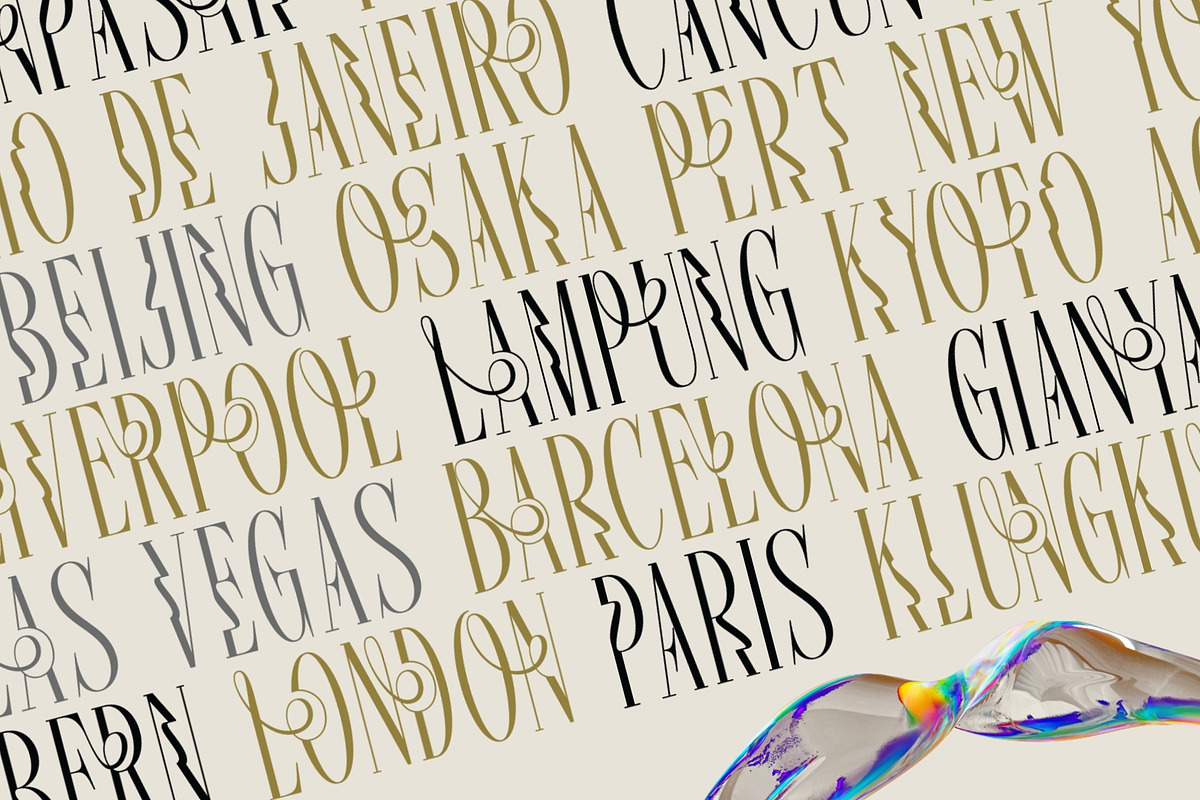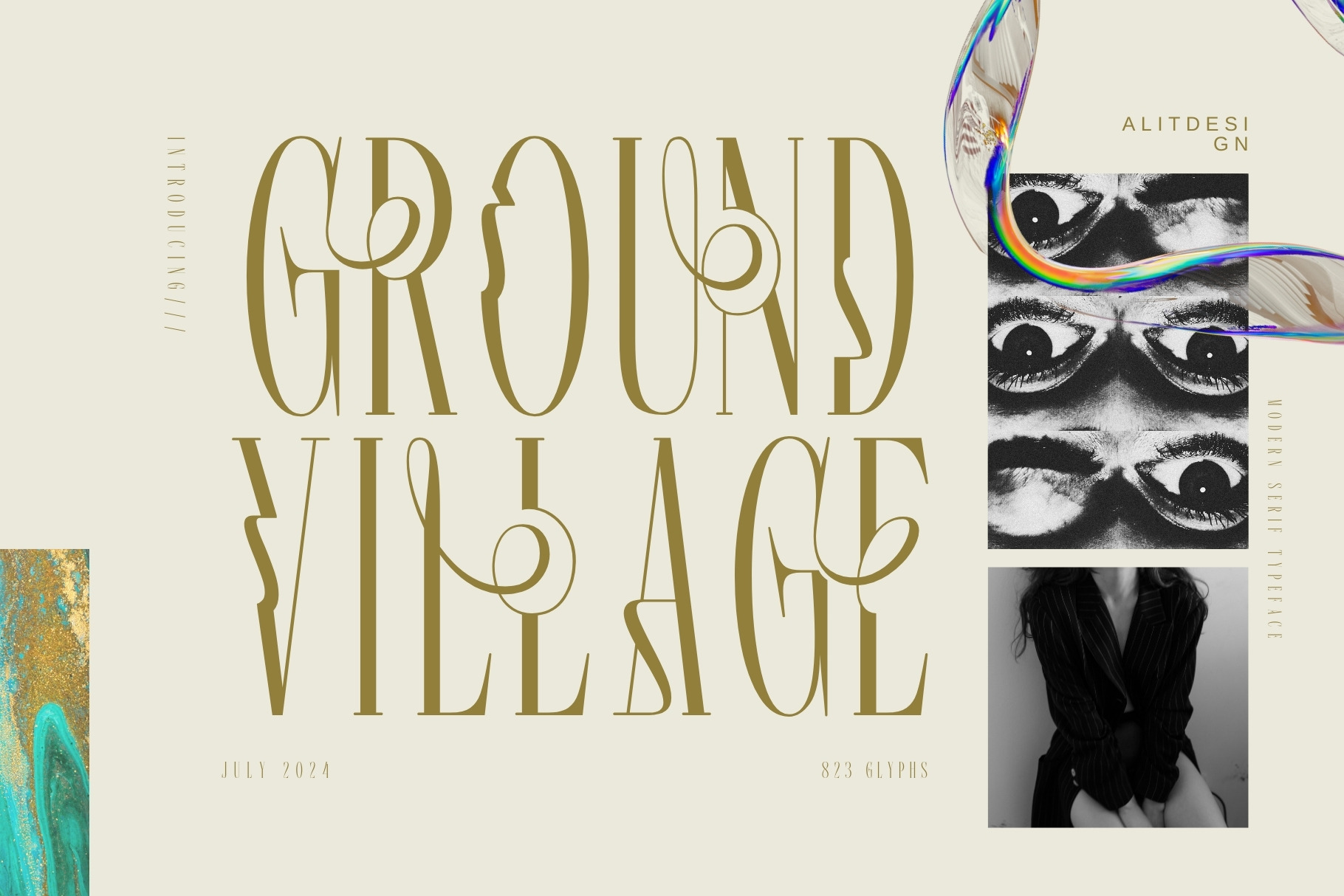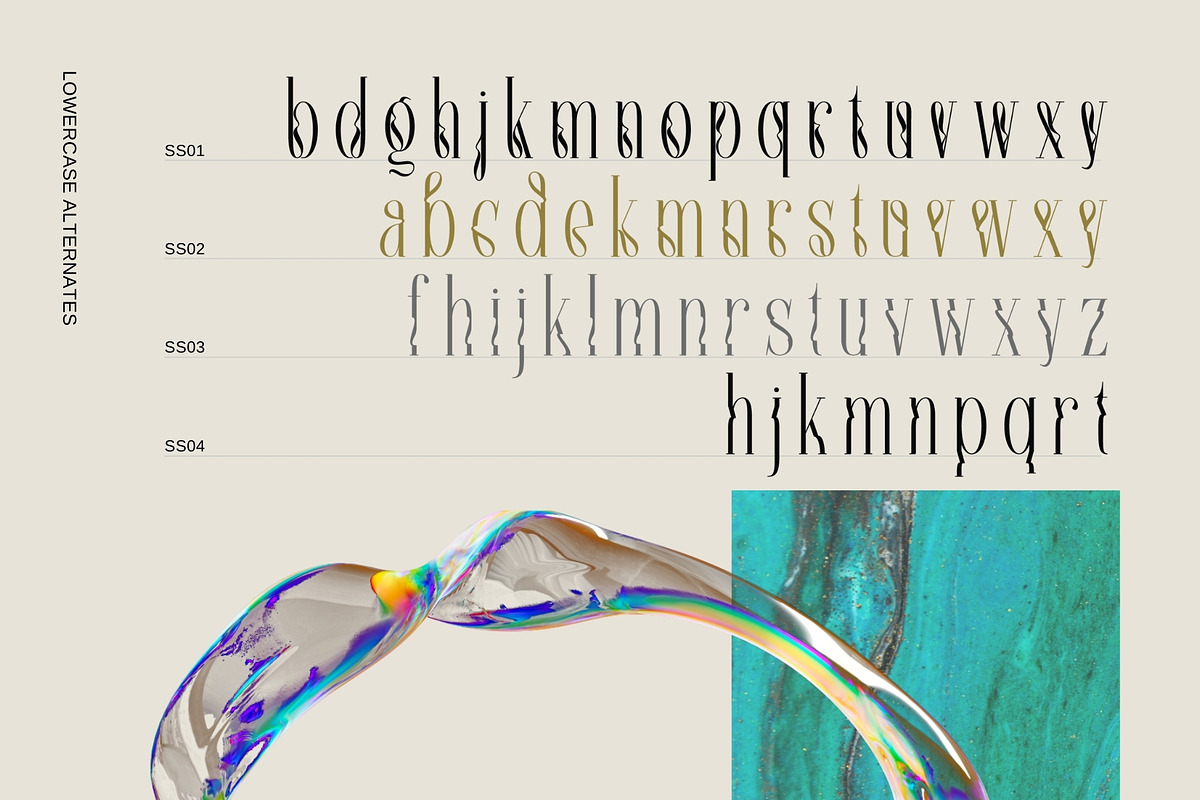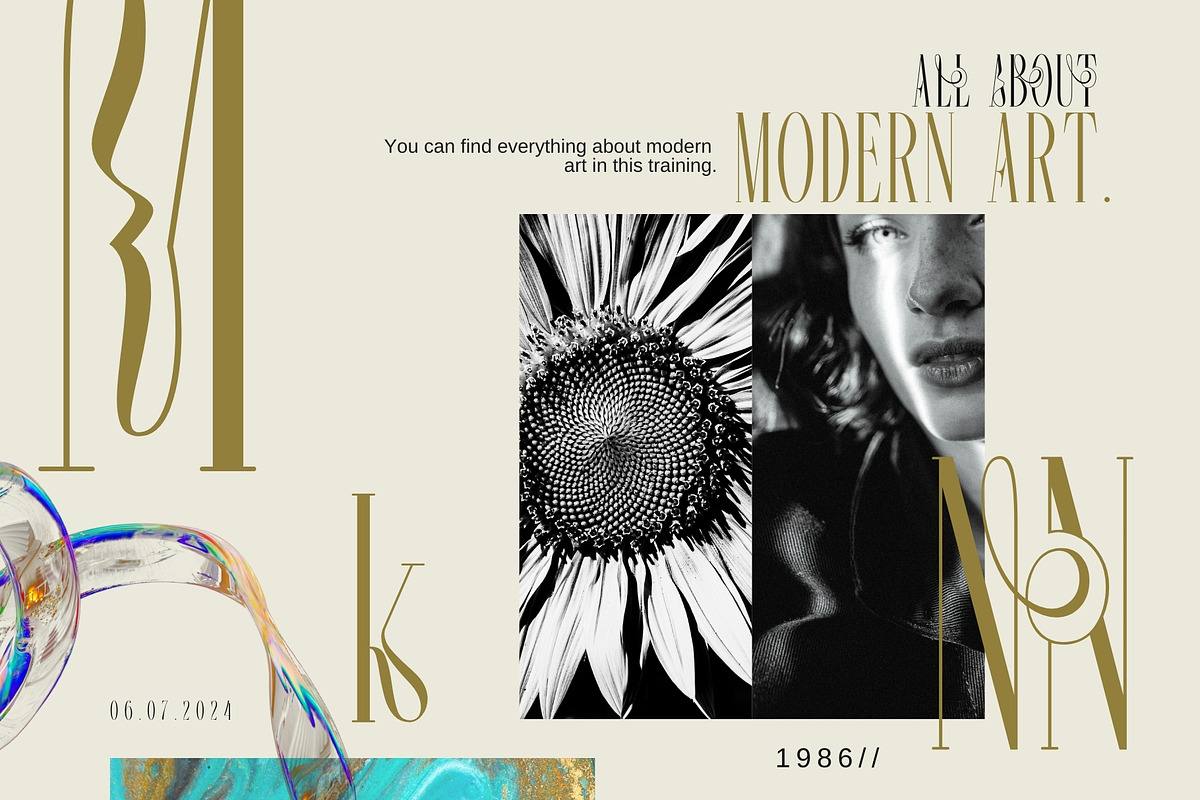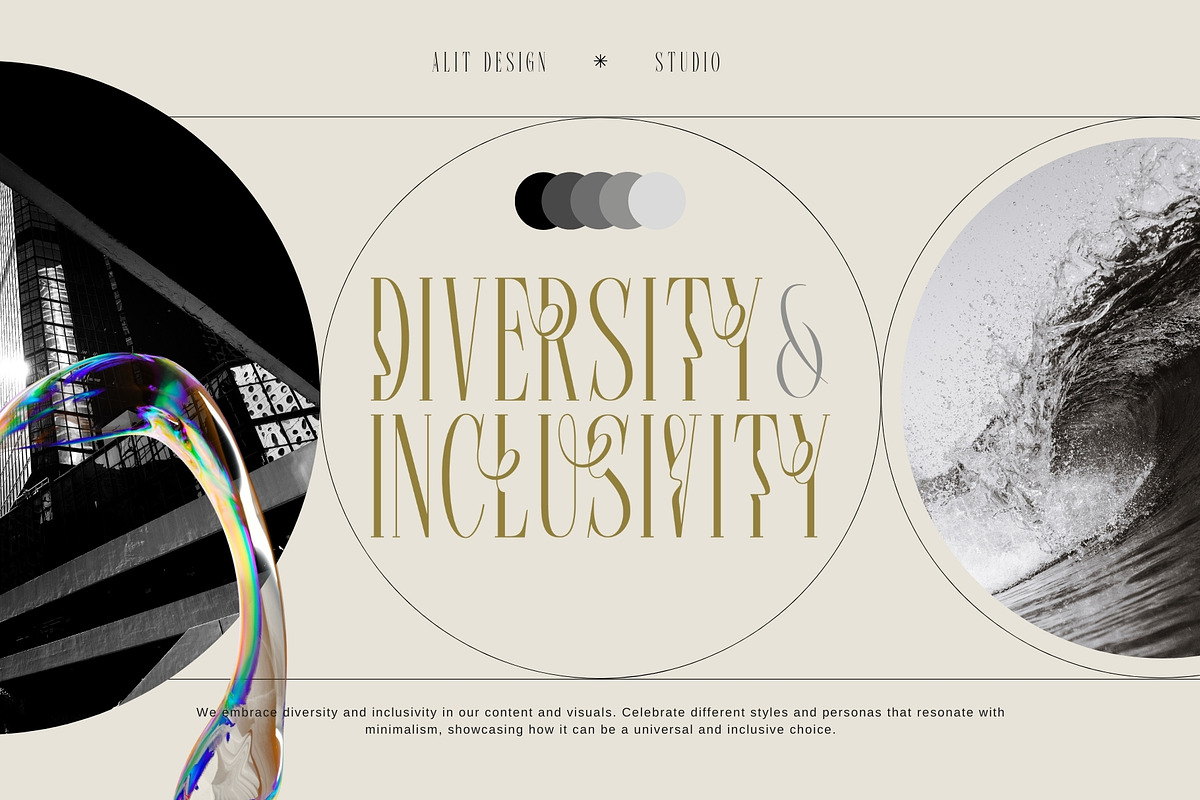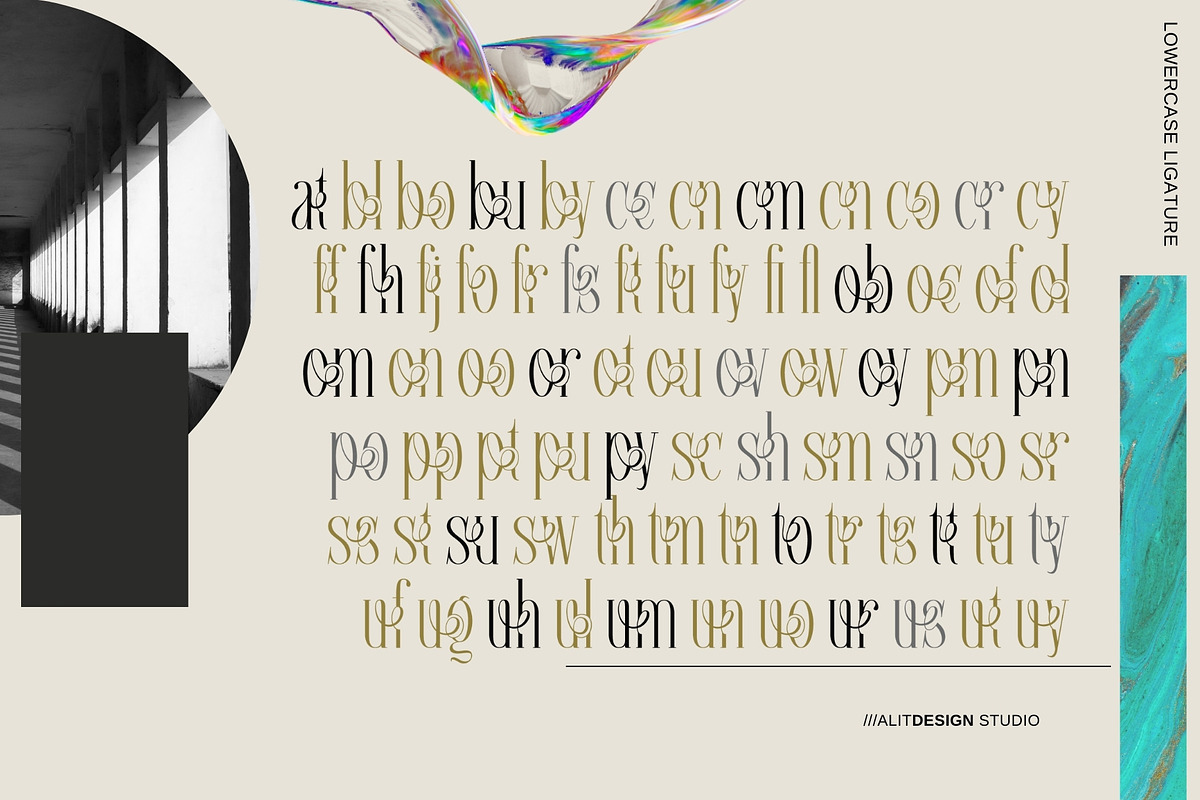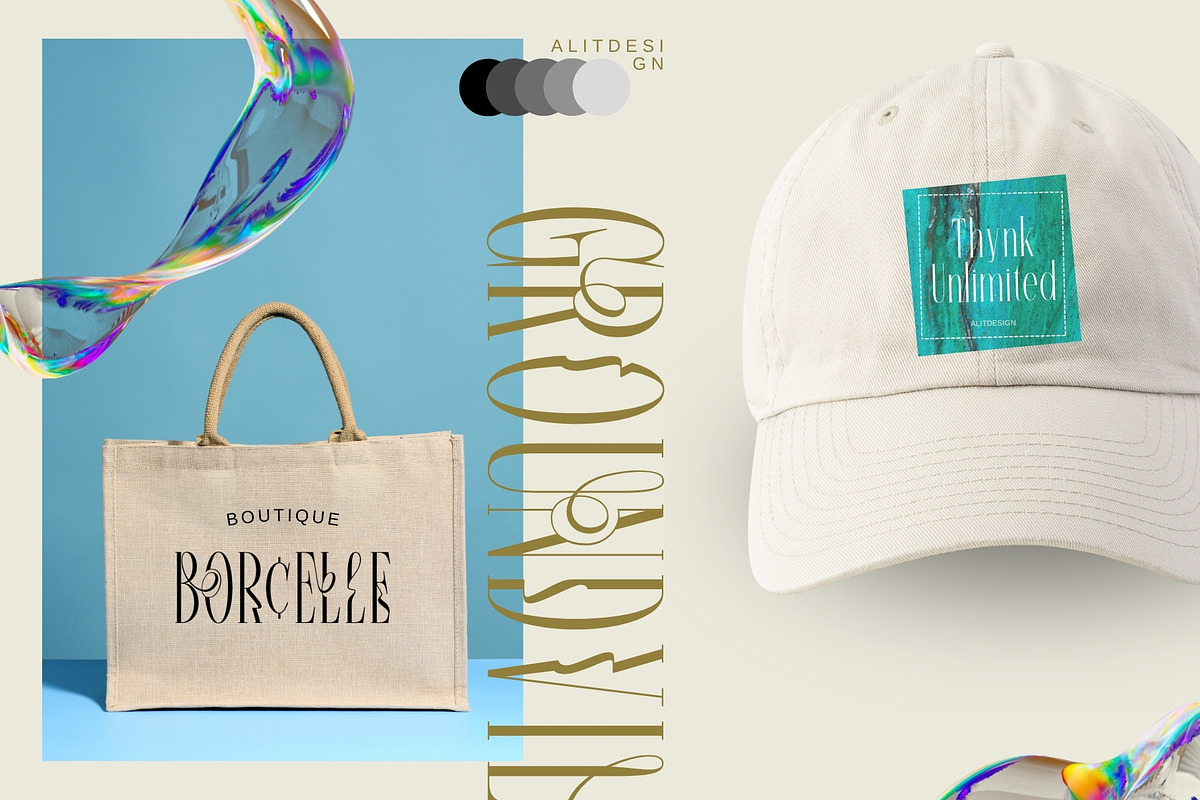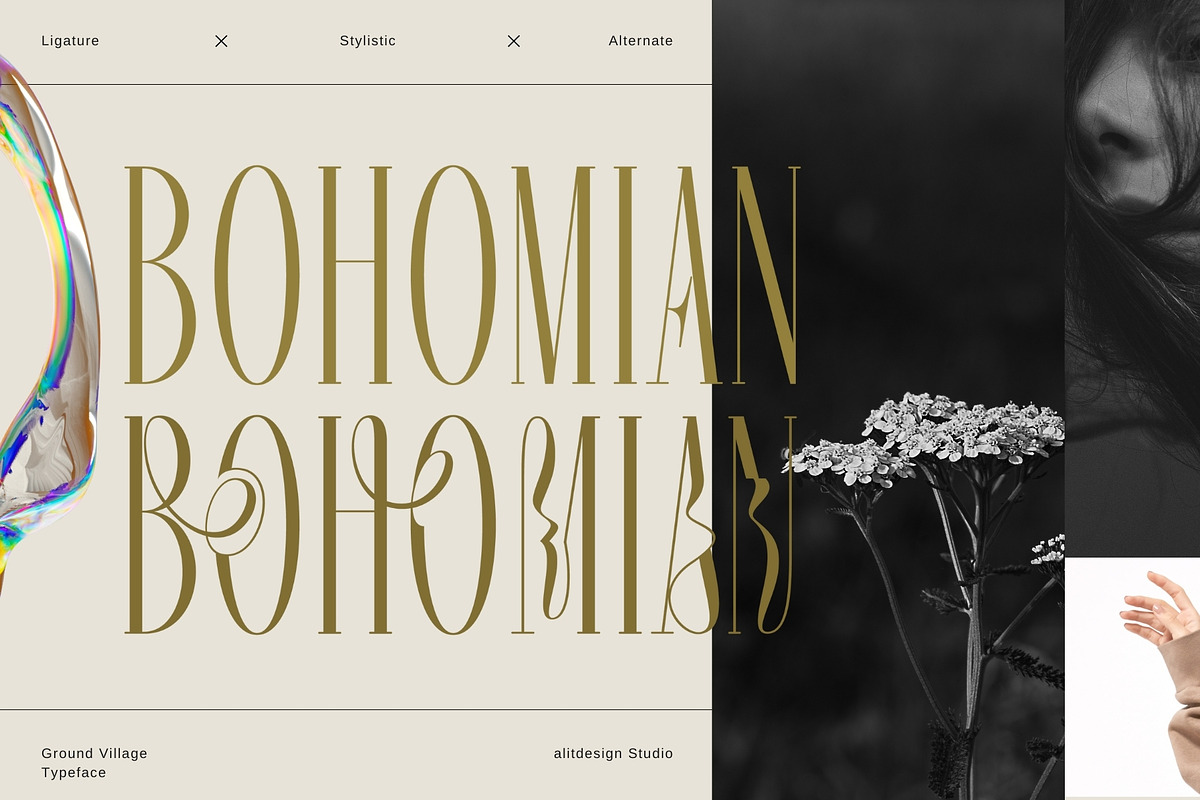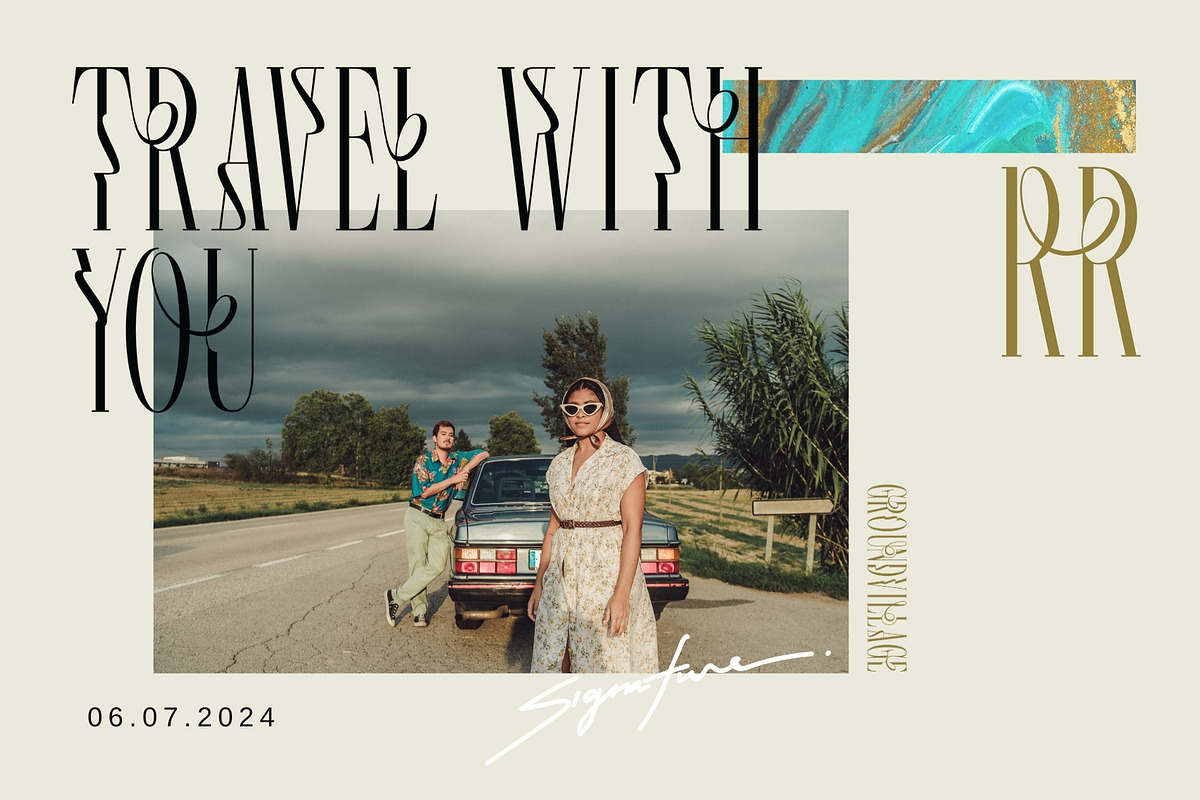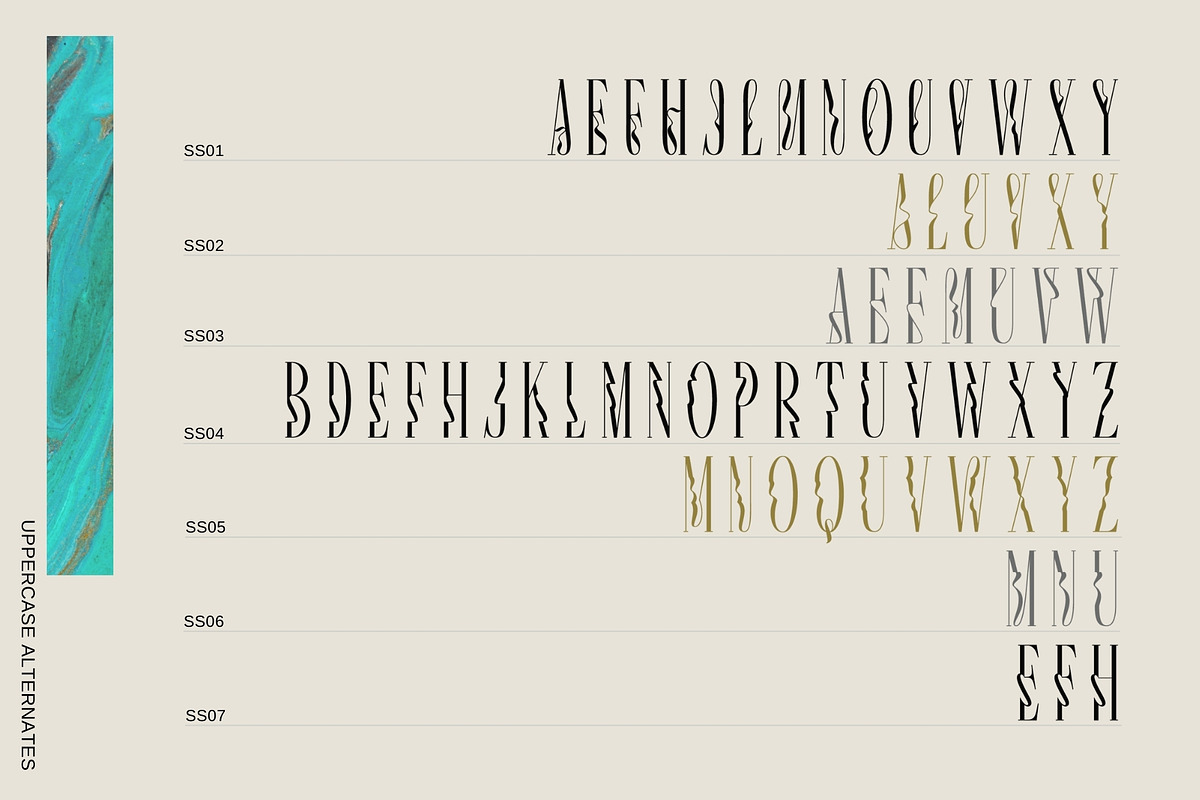
Ground Village Typeface
Discover the Essence of Modern Elegance
Introducing the Ground Village Typeface, a modern sans serif font that effortlessly marries contemporary design with timeless sophistication. This typeface features a slightly taller body, giving your text an elongated, sleek appearance that stands out with poise and clarity.
Unique Features:
- Slightly Taller Body: The elevated height of each character enhances readability while imparting a distinctive and refined look.
- Alternative Ribbon-Like Curves: Ground Village incorporates elegantly modified curves that evoke the fluidity and grace of ribbons, adding a touch of creative flair to your text.
- Dynamic Ligatures: Experience seamless letter combinations with our dynamic ligatures, designed to enhance the aesthetic appeal and fluidity of your typography.
- Branding: Elevate your brand's identity with a typeface that exudes modernity and sophistication.
- Editorial Design: Ideal for magazines, blogs, and online publications seeking a contemporary yet classy look.
- Advertising: Capture attention with striking headlines and captivating promotional materials.
Versatility at Its Best:
Ground Village Typeface is designed to adapt to a variety of design contexts, from digital screens to print media. Whether you're crafting a minimalist website, a chic magazine layout, or a sleek advertising campaign, this font provides the versatility and elegance you need.
Embrace Modernity with Ground Village Typeface
Transform your typographic presence with Ground Village, a typeface that embodies the essence of modern design. Experience the perfect blend of innovation and elegance, and make a bold statement with every word.